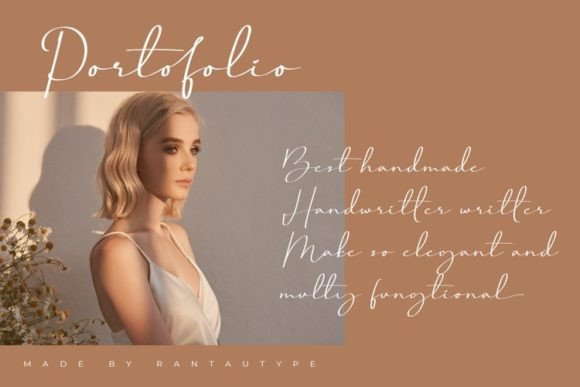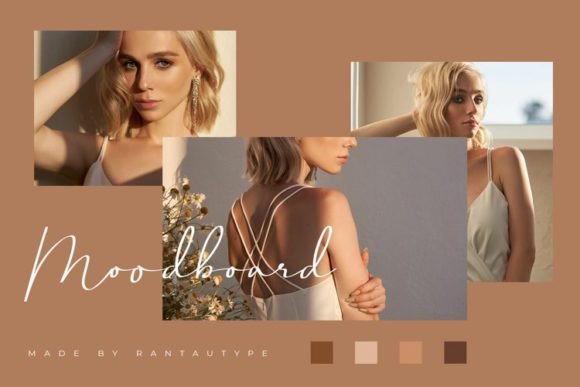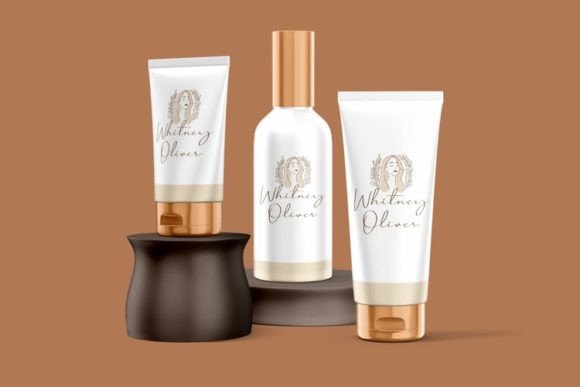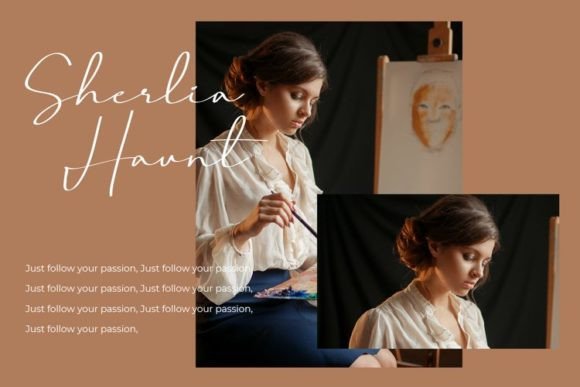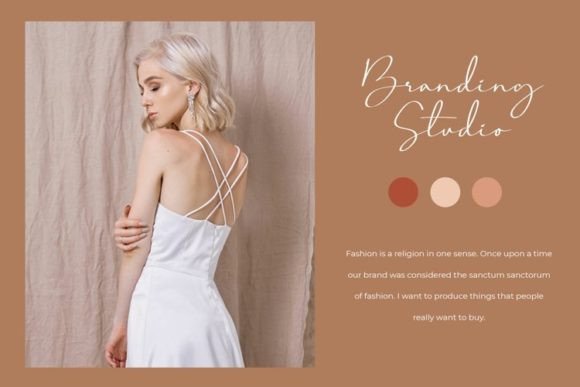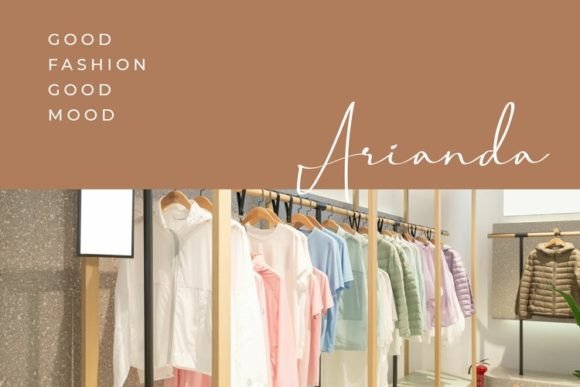
The Brittney Queen Font: A Timeless Handwritten Treasure
I’ll never forget the design struggle I faced when working on a romantic wedding invitation project. My client wanted a font that exuded elegance, whimsy, and a touch of nostalgia. I scoured the internet, tried countless fonts, but nothing seemed quite right. That was until I stumbled upon the Brittney Queen font. ✨ With its relaxed, timeless, and handwritten charm, it instantly captured the essence of my client’s vision. In this article, I’ll share my experience with the Brittney Queen font, its features, and how to make the most of it in your designs.
- ✨ Romantic and dreamy feel, perfect for projects that require a touch of elegance
- 💫 Beautifully crafted with attention to detail, making it suitable for a wide range of design applications
- 🌈 Versatile and works well with various design styles, from rustic to modern
While the Brittney Queen font is exceptional, there are a few minor quirks to be aware of:
- 🤔 Limited availability of Cyrillic characters, which might be a concern for designs that require non-English text
- ⚠️ Some users may find the font’s x-height a tad too high, which can affect the overall flow of text
The Brittney Queen font offers a range of OpenType features, including stylistic alternates, glyphs, and ligatures. These features allow you to customize your text and add a personal touch to your designs.
| Feature | Description |
| Stylistic Alternates | Swap out characters for alternate versions, adding variety to your text |
| Glyphs | Access a range of glyphs, including flourishes and swashes, to enhance your designs |
| Ligatures | Combine characters for a more elegant, connected look |
The Designer Inspiration Behind Brittney Queen
The Brittney Queen font was crafted with inspiration from classic handwritten scripts and a dash of modern charm. Its creator aimed to design a font that would evoke a sense of romance and whimsy, perfect for a wide range of design applications.
Q: What type of projects is the Brittney Queen font best suited for?
A: The Brittney Queen font is versatile and can be used for various projects, including wedding invitations, branding, packaging, and more.
Q: Is the Brittney Queen font available in multiple languages?
A: The Brittney Queen font supports multiple languages, but its coverage may be limited. Please check the font’s specifications for more information.